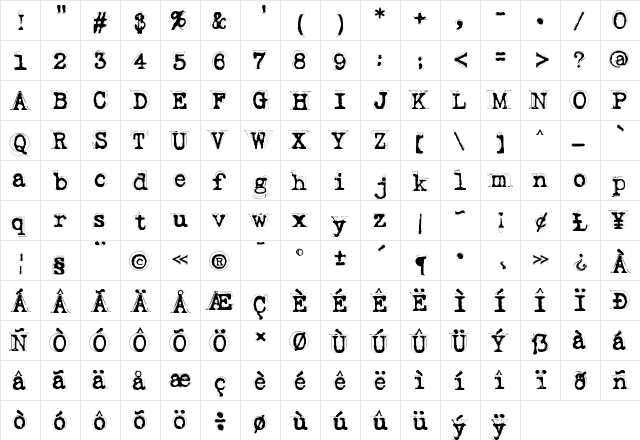
Fluoxetine Regular
| Designer | Apostrophe (') |
Design Context for Fluoxetine Typeface
Fluoxetine is a composed and adaptable typeface that performs quietly and consistently across a wide range of design contexts.